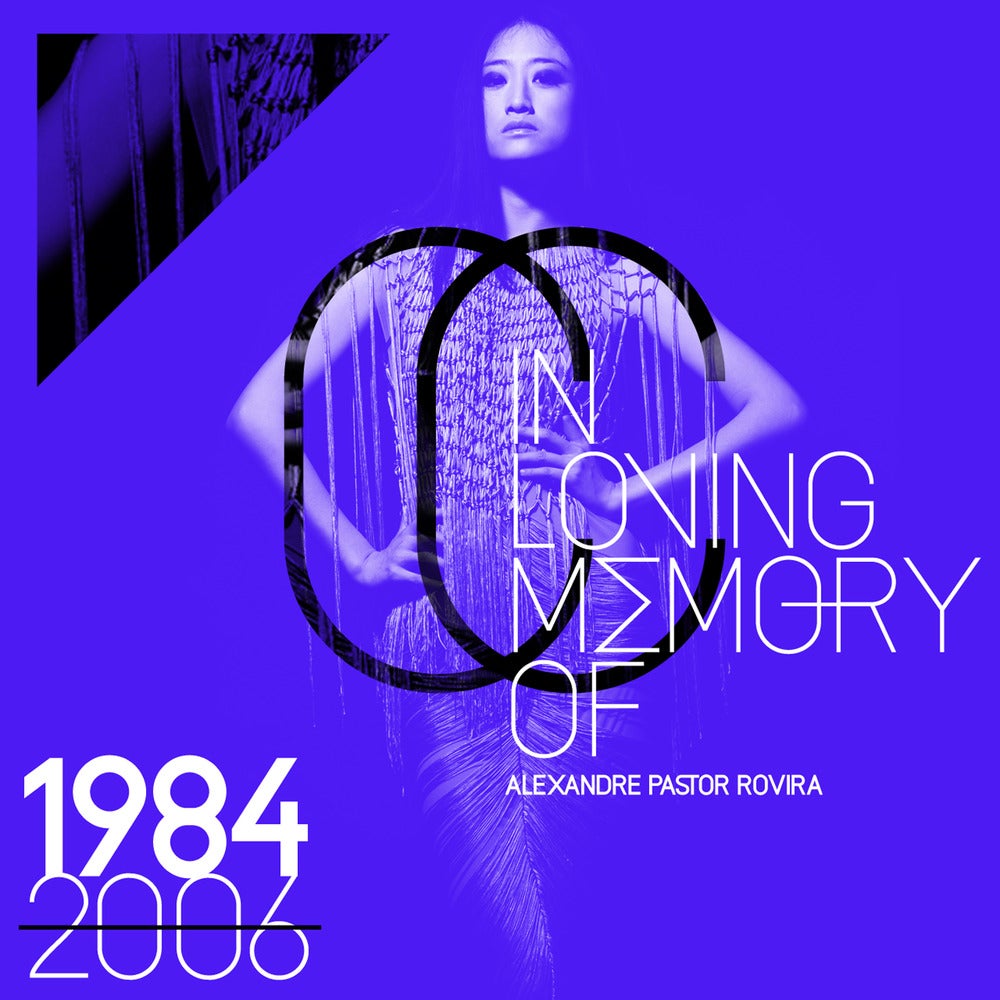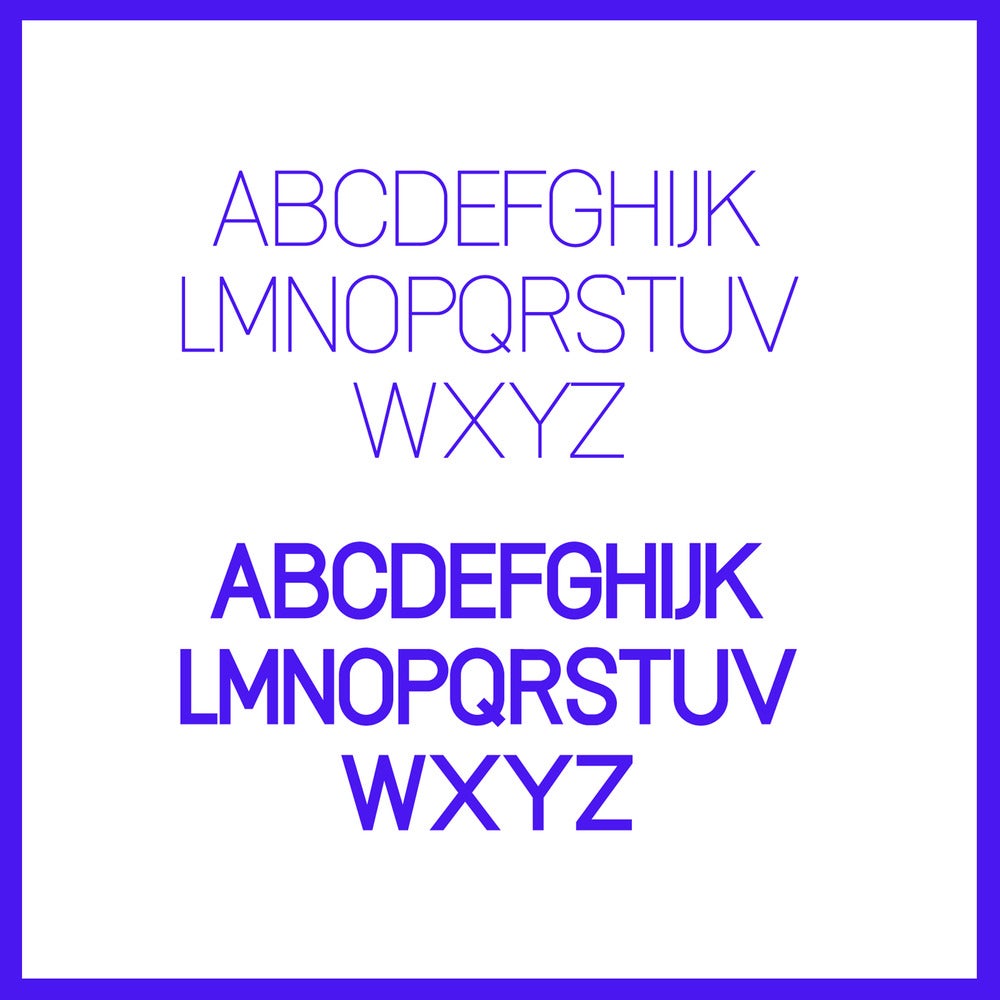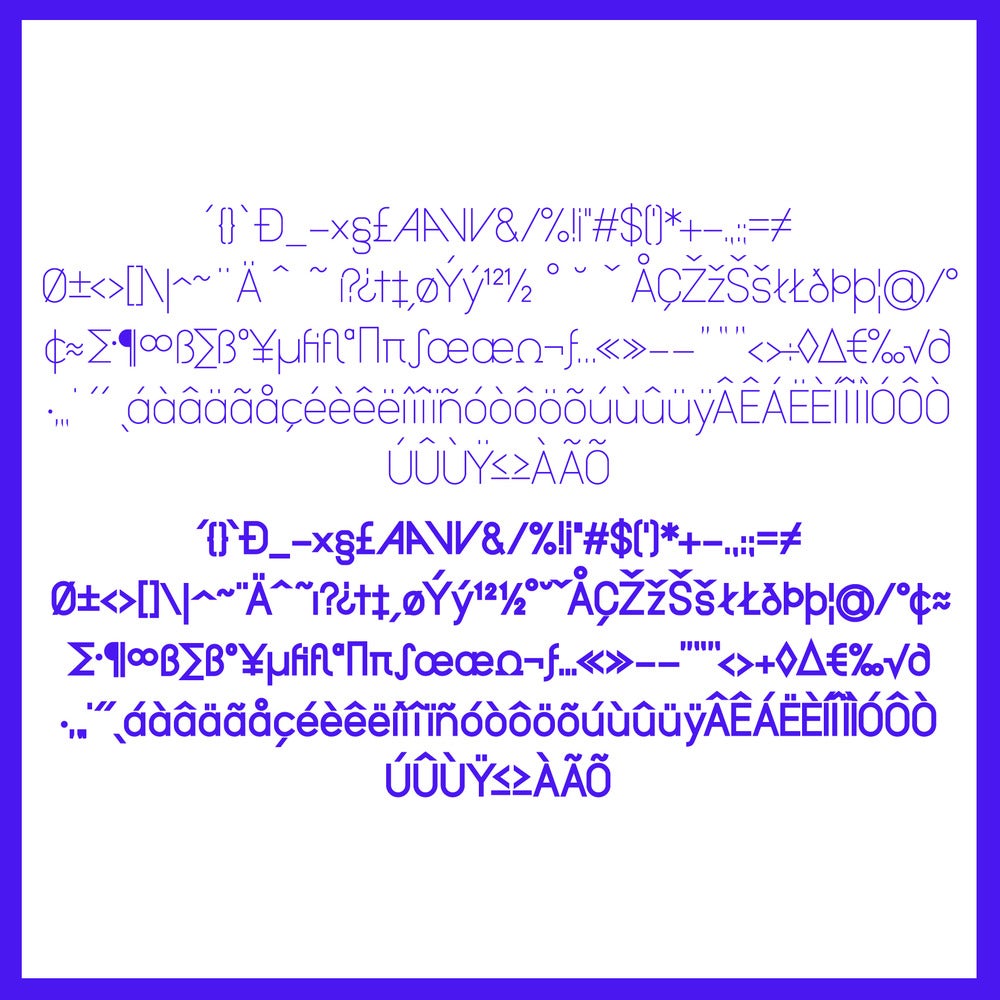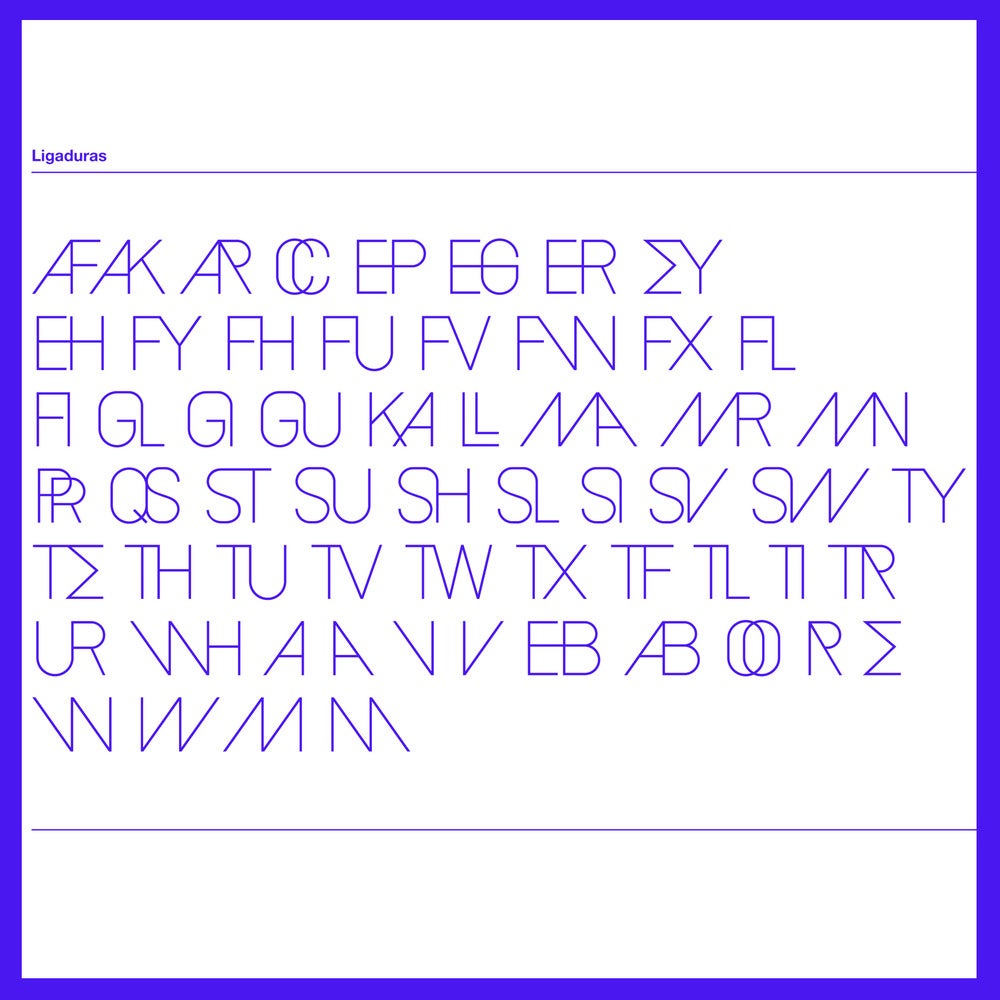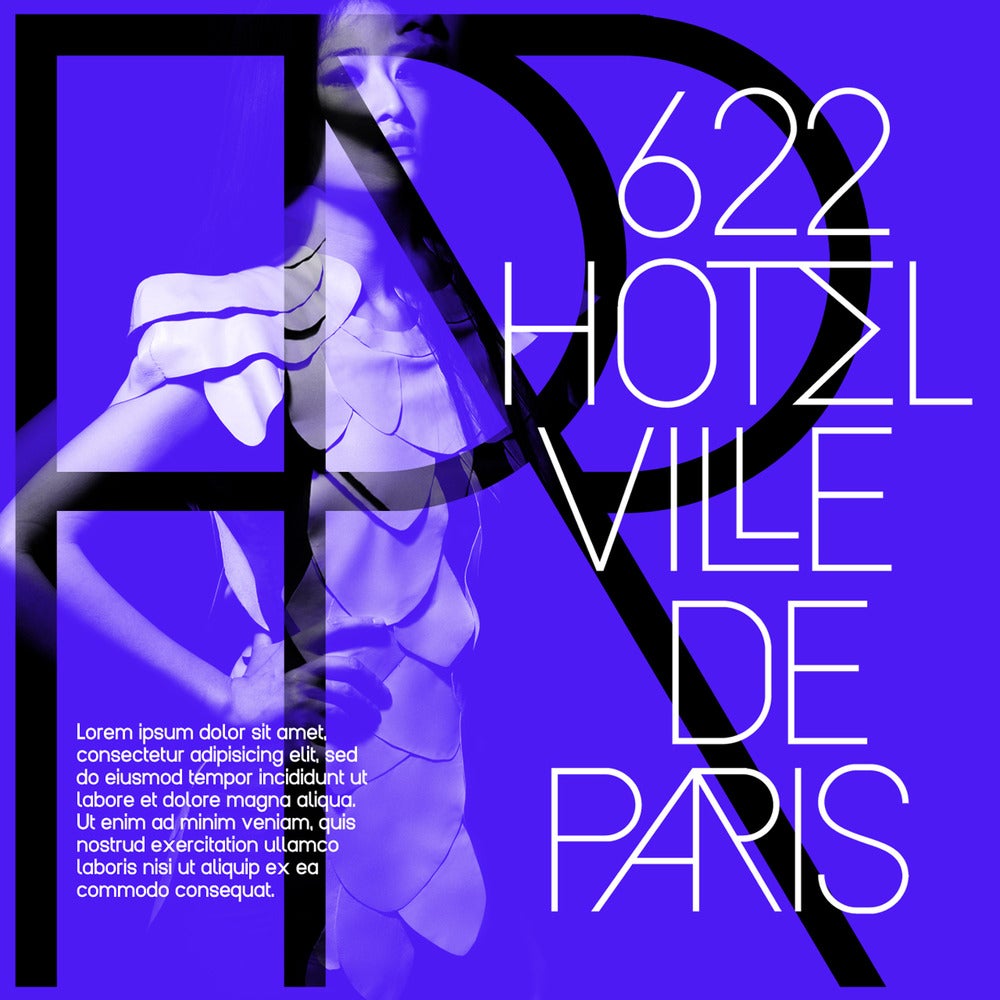
Alexander Grotesk
Alexander Grotesk is a sans serif typeface that try's to mix the construction of Din typeface with the modern character of Avant Garde gothic. Don't forget to check the opentype features (alternates and ligatures).